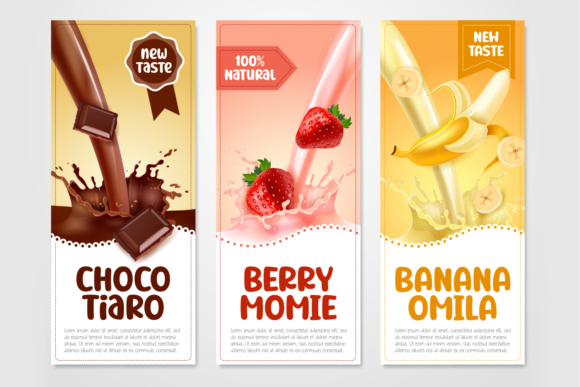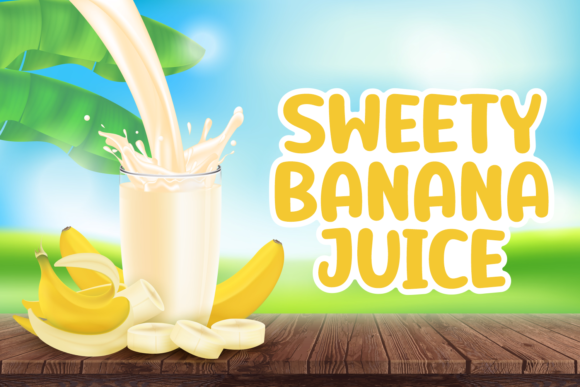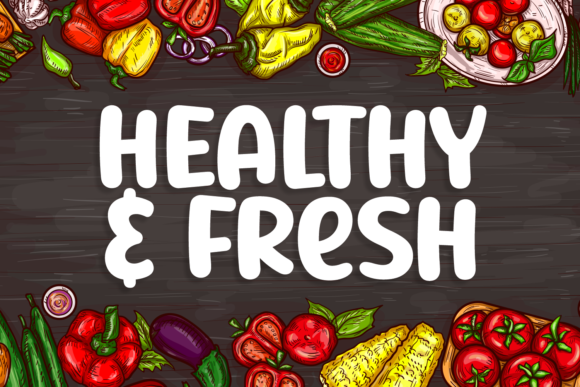
Introduction to Crispy Banana Font
Crispy Banana is a playful and fun display font.
Be ready to grab and use this creative and retro typeface for posters, food&drinks menus, childrenโs theme designs, and branding, especially when combined with bright colors .
Key Features of Crispy Banana Font